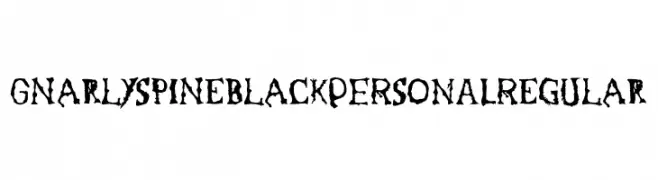
A bold, thorny font with sharp, jagged edges for dramatic impact.
A bold, gothic-style font with sharp, thorn-like edges and high contrast.
A bold, gothic font with sharp, thorn-like edges and a dramatic style.
A jagged, thorn-like font perfect for Halloween themes.
A jagged, thorn-like decorative font with sharp, elongated strokes.
A chaotic, thorny decorative font ideal for horror-themed designs.
An edgy, thorny font with sharp, jagged edges for a bold look.
A bold, thorny font with a fierce and edgy design, perfect for dramatic visuals.
A bold, thorny font with a dramatic and edgy style.
A bold, jagged font with a distressed, thorn-like appearance.